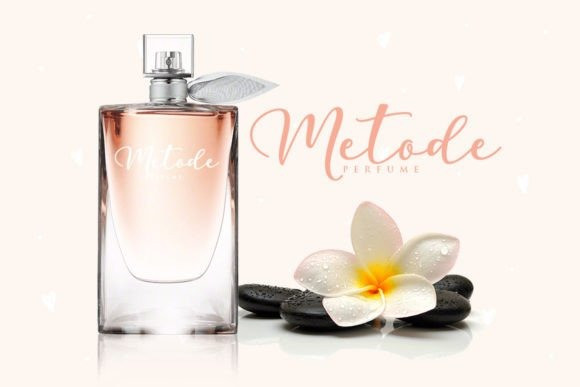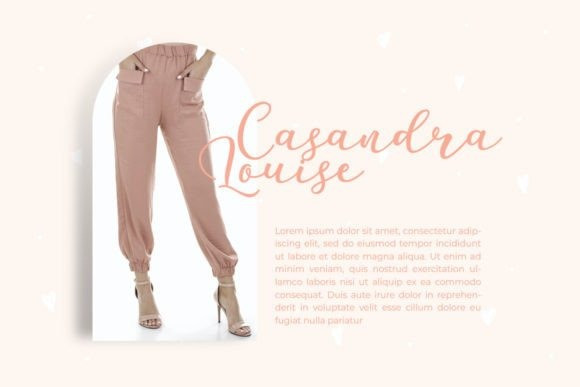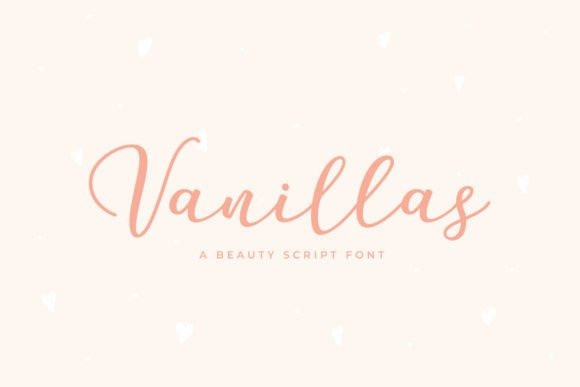
Vanillas Font
Vanillas Script Font is a fresh and beauty script font with a lovely twist. Get inspired by its playful and delicate vibe, and turn any design project into a stunner.